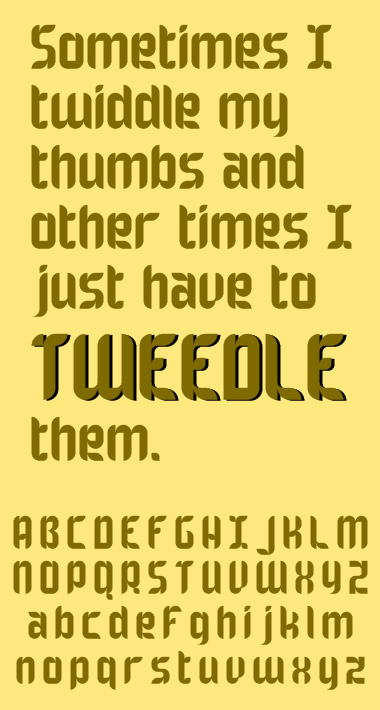
Sorry. I am afraid, you understood me not correctly. On a image - your font.
Unfortunately, my English is terrible. I like your font, but my vocabulary not sufficiently big, to write something greater, than "good font". It image - a sort of to express oneself in pantomime...
Very sweet! Any chance we get numerals?;)
I'd maybe try to smoothen Z and z a little... Shit, running out of typography vocabulary again. OK, I'll just do it the unprofessional way: Maybe try to round the corners, but outwards. So not like a reflected S, but in the other way... Hm, see what I mean? :D
Crap. I'm sure that will bring out the plagiarism police, even though I've never seen that.
Maybe I'll delay it's release by a few weeks.
Unfortunately, my English is terrible. I like your font, but my vocabulary not sufficiently big, to write something greater, than "good font". It image - a sort of to express oneself in pantomime...
That makes me feel a lot better.
I'd maybe try to smoothen Z and z a little... Shit, running out of typography vocabulary again. OK, I'll just do it the unprofessional way: Maybe try to round the corners, but outwards. So not like a reflected S, but in the other way... Hm, see what I mean? :D